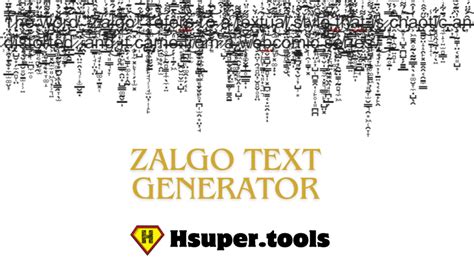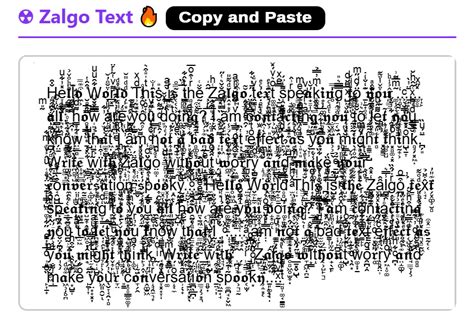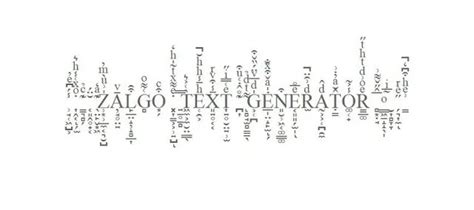
Download Zalgo Font - Web this is the zalgo text generator. This font style includes regular characters combined with diacritics around each. Web copy text what font is called zalgo? Zalgo text generator is a free tool that turns your normal text into creepy (scary) or halloween style. It allows you to convert normal text into zalgo text which you can then copy and paste.
Web copy text what font is called zalgo? It allows you to convert normal text into zalgo text which you can then copy and paste. This font style includes regular characters combined with diacritics around each. Web this is the zalgo text generator. Zalgo text generator is a free tool that turns your normal text into creepy (scary) or halloween style.
It allows you to convert normal text into zalgo text which you can then copy and paste. Zalgo text generator is a free tool that turns your normal text into creepy (scary) or halloween style. Web copy text what font is called zalgo? Web this is the zalgo text generator. This font style includes regular characters combined with diacritics around each.
Zalgo text generator is a free tool that turns your normal text into creepy (scary) or halloween style. Web this is the zalgo text generator. It allows you to convert normal text into zalgo text which you can then copy and paste. This font style includes regular characters combined with diacritics around each. Web copy text what font is called.
ᐈ Zalgo Text Generator For Roblox
Zalgo text generator is a free tool that turns your normal text into creepy (scary) or halloween style. It allows you to convert normal text into zalgo text which you can then copy and paste. This font style includes regular characters combined with diacritics around each. Web copy text what font is called zalgo? Web this is the zalgo text.
Zalgo Font Generator Zalgo Text Generator / Zalgo text is text with
Web this is the zalgo text generator. Zalgo text generator is a free tool that turns your normal text into creepy (scary) or halloween style. Web copy text what font is called zalgo? It allows you to convert normal text into zalgo text which you can then copy and paste. This font style includes regular characters combined with diacritics around.
Zalgo Font Generator Zalgo Text This zalgo text generator lets you
Web copy text what font is called zalgo? It allows you to convert normal text into zalgo text which you can then copy and paste. Zalgo text generator is a free tool that turns your normal text into creepy (scary) or halloween style. This font style includes regular characters combined with diacritics around each. Web this is the zalgo text.
Creepy Zalgo Text Generator (Copy And Paste) Lingojam / Lingojam
Web copy text what font is called zalgo? This font style includes regular characters combined with diacritics around each. It allows you to convert normal text into zalgo text which you can then copy and paste. Web this is the zalgo text generator. Zalgo text generator is a free tool that turns your normal text into creepy (scary) or halloween.
Zalgo Text Generator [Copy and Paste] 2023
It allows you to convert normal text into zalgo text which you can then copy and paste. Web this is the zalgo text generator. This font style includes regular characters combined with diacritics around each. Zalgo text generator is a free tool that turns your normal text into creepy (scary) or halloween style. Web copy text what font is called.
Zalgo Text Generator (C̶̱̋̚͝o̶̭̳͈̊̂͝p̷̢̜̃̕͠y̸͖͚̆ ̴͔̘̲̅̅&̷͉͈̲̊
Web this is the zalgo text generator. Zalgo text generator is a free tool that turns your normal text into creepy (scary) or halloween style. It allows you to convert normal text into zalgo text which you can then copy and paste. Web copy text what font is called zalgo? This font style includes regular characters combined with diacritics around.
8 Best Free Zalgo Text Generator Tools {2023 Updated}
Web copy text what font is called zalgo? This font style includes regular characters combined with diacritics around each. Web this is the zalgo text generator. Zalgo text generator is a free tool that turns your normal text into creepy (scary) or halloween style. It allows you to convert normal text into zalgo text which you can then copy and.
Zalgo Font Generator / This kind of text is often referred to as zalgo
It allows you to convert normal text into zalgo text which you can then copy and paste. Web this is the zalgo text generator. Zalgo text generator is a free tool that turns your normal text into creepy (scary) or halloween style. Web copy text what font is called zalgo? This font style includes regular characters combined with diacritics around.
Zalgo Text Generator [Just Copy & Paste]
This font style includes regular characters combined with diacritics around each. Web this is the zalgo text generator. Web copy text what font is called zalgo? Zalgo text generator is a free tool that turns your normal text into creepy (scary) or halloween style. It allows you to convert normal text into zalgo text which you can then copy and.
It allows you to convert normal text into zalgo text which you can then copy and paste. This font style includes regular characters combined with diacritics around each. Web copy text what font is called zalgo? Web this is the zalgo text generator.